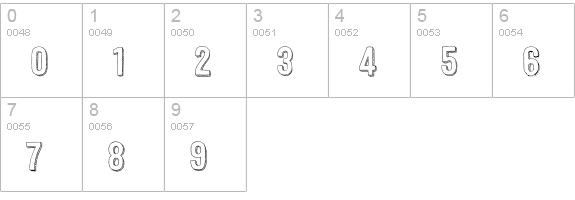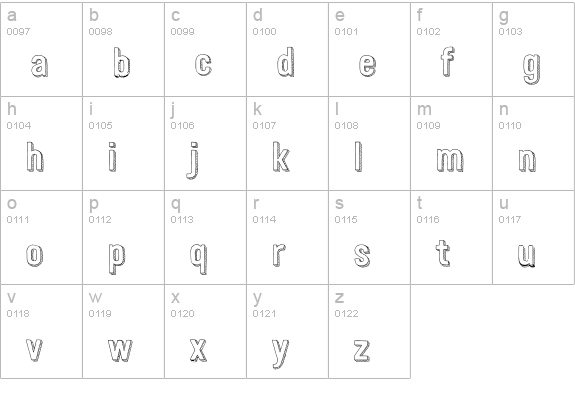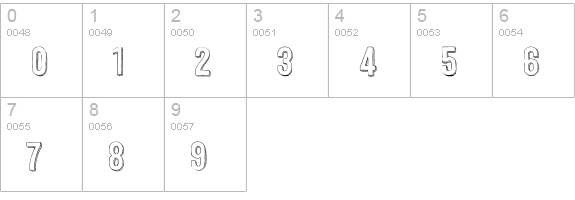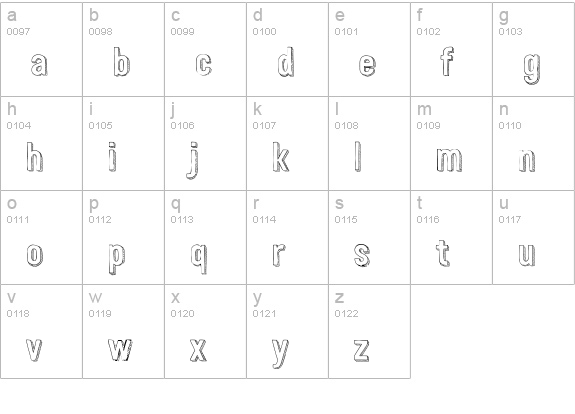
Introducing Festivo LC 3D font, a stunning display typeface that exudes a sense of modern elegance and sophistication. This unique font features three-dimensional effects that add depth and visual interest to any design project. Festivo LC 3D font is perfect for creating eye-catching headlines, logos, posters, and more. One of the best things about Festivo LC 3D font is that it is completely free to download. You can easily access this stylish font at FontsMarket.com, where you can unleash your creativity and elevate your designs with this bold and striking typeface. Whether you're working on a branding project, a social media campaign, or any other creative endeavor, Festivo LC 3D font is sure to make a lasting impression. Don't miss out on this fantastic opportunity to enhance your designs with this free and captivating font.